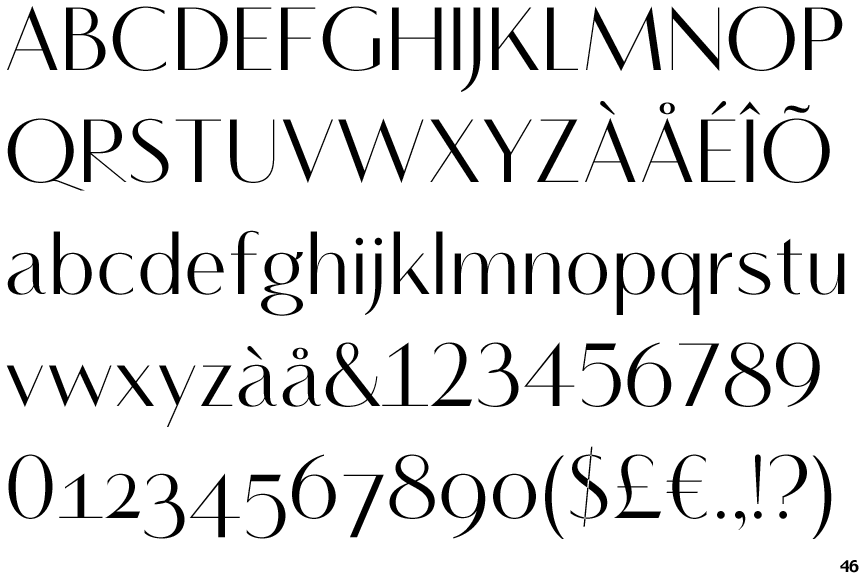
It features a high contrast, geometric design in the style of. Web 37 professional vanitas extra bold fonts to download. Vanitas contains 8 styles and family package options.
Vanitas Font Family Was Designed By Michael Jarboe And Published By Reserves.